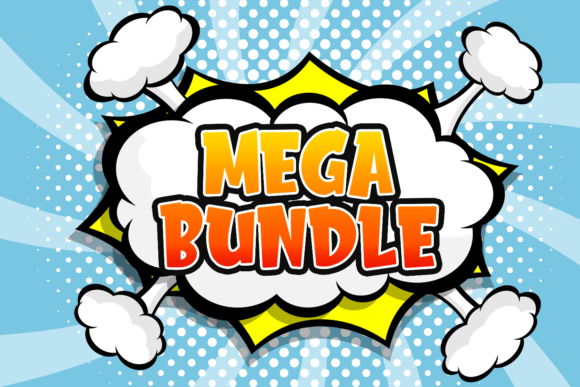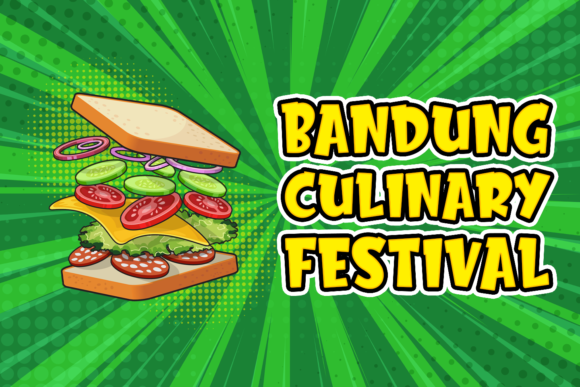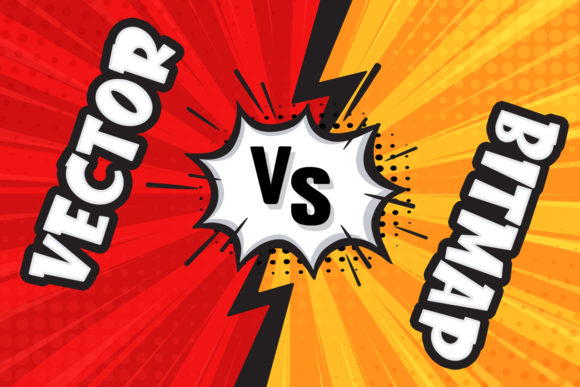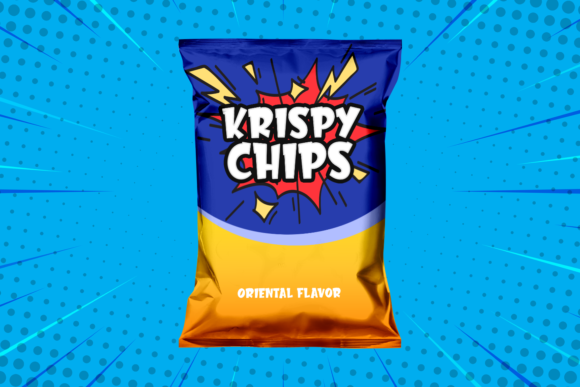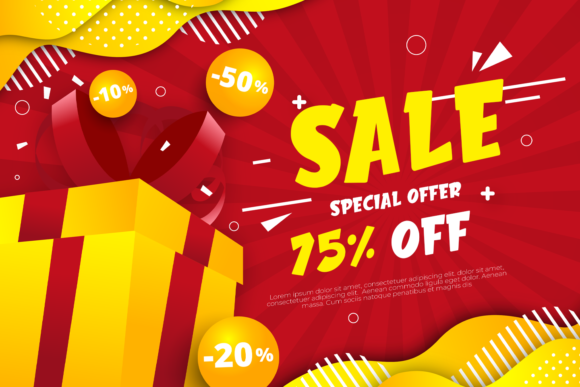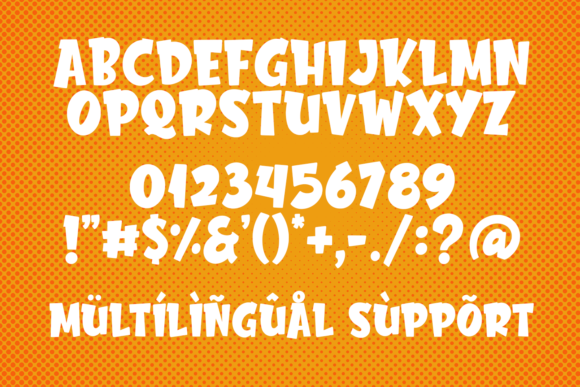
Introducing Chester Network Font: The Ultimate Comic Style Delight
Are you tired of using the same old fonts for your design projects? Look no further! Chester Network Font is here to revolutionize your typography with its vibrant comic style and charming cartoonish feel. This delightful font is sure to capture the hearts of designers, crafters, and anyone looking to add a touch of playfulness to their creations.
The Charm of Chester Network Font
Chester Network Font boasts a unique and captivating design that exudes a sense of fun and friendliness. Its comic style letters are carefully crafted to bring a smile to your face, making it perfect for projects that require a dash of whimsy. Whether you’re working on a children’s book, a craft project, or a website design, this font is sure to add a spark of creativity and imagination.
Key Features of Chester Network Font
- Vibrant Comic Style: Chester Network Font features a bold and colorful design that’s reminiscent of classic comic books.
- Cartoonish Feel: The font’s playful and childlike appearance makes it perfect for projects that require a touch of humor and lightheartedness.
- Highly Versatile: Chester Network Font can be used for a wide range of projects, from digital designs to print materials.
- Easy to Read: Despite its playful design, the font remains highly legible, making it suitable for both headlines and body text.
Chester Network Font is a dream come true for designers and crafters looking to add a personal touch to their work. Whether you’re creating:
- Digital Art: Use Chester Network Font to add a pop of color and personality to your digital art projects.
- Craft Projects: Add a touch of whimsy to your craft projects, such as handmade cards, scrapbooking, or DIY decorations.
- Websites and Blogs: Use Chester Network Font to create eye-catching headlines and add a playful touch to your website or blog.
Tips for Using Chester Network Font
To get the most out of Chester Network Font, here are a few tips:
- Pair with Neutral Fonts: Pair Chester Network Font with neutral fonts to create a striking contrast and add visual interest.
- Experiment with Colors: Don’t be afraid to experiment with different colors and textures to bring out the playful personality of the font.
- Use for Headlines and Titles: Chester Network Font is perfect for headlines and titles, but feel free to use it for body text for a more playful look.
Chester Network Font is a vibrant and charming comic style font that’s sure to delight designers and crafters alike. Its playful and cartoonish feel makes it perfect for adding a touch of whimsy to your projects. With its highly versatile design and easy-to-read letters, Chester Network Font is an excellent addition to any design toolkit. So why wait? Fall in love with Chester Network Font and bring a dash of fun and creativity to your work!